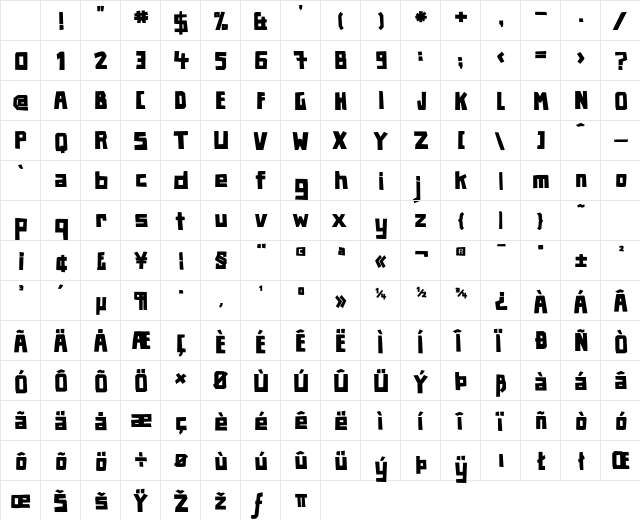
Complete Paper Johnny Eineinhalb Regular glyph index. Displaying only characters natively supported by Paper Johnny Eineinhalb Regular font.
Paper Johnny Eineinhalb is a composed and adaptable typeface that performs quietly and consistently across a wide range of design contexts.